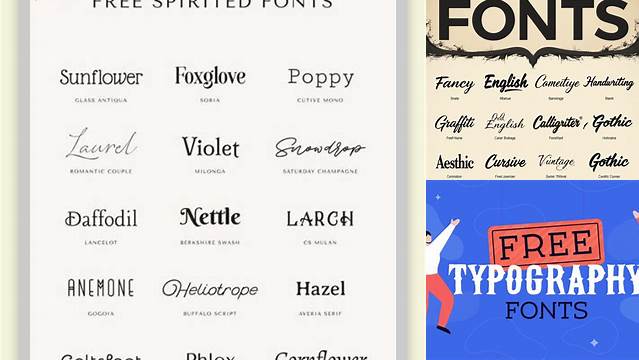
Free Fonts: Download & Use For Stunning Designs
Free Fonts: Download Stunning Typography for Your Projects
Hey there, font enthusiasts! Looking to spice up your designs without breaking the bank? You've come to the right place! This article is all about beautiful font free download, diving into the world of typography and helping you discover some amazing fonts that won't cost you a dime. We'll cover everything from classic serifs to modern sans-serifs, script fonts to display fonts, ensuring you find the perfect typeface to express your creativity. Whether you're a graphic designer, a blogger, a student, or just someone who loves playing with fonts, get ready to explore a treasure trove of free font resources. Let's get started and unlock the potential of stunning typography for all your projects! Beautiful font free download is a great way to start your project.
Why Free Fonts Are a Designer's Best Friend
So, why are beautiful font free downloads such a big deal? Well, let's face it, the cost of premium fonts can add up quickly. For budding designers or those working on personal projects, shelling out big bucks for fonts isn't always feasible. That's where free fonts come in, offering a fantastic opportunity to access a wide variety of typefaces without spending a single penny. This means you can experiment with different styles, find the perfect font for your brand or project, and enhance your designs without any financial constraints.
But it's not just about the cost. Free fonts can also spark your creativity and introduce you to new design possibilities. By exploring different styles, from elegant serifs to playful scripts, you can broaden your typographic horizons and discover unique ways to communicate your message. Plus, many free fonts are incredibly high-quality, often created by talented designers who generously share their work with the community. So, you're not just getting something for free; you're getting access to design excellence. Also, beautiful font free downloads are also useful for commercial use, just make sure you check the license. Some free fonts are licensed for personal use only, while others are available for both personal and commercial projects. Always read the fine print to ensure you're using the font legally. Beautiful font free download is a way to make your project unique and creative. Free fonts are a fantastic resource for designers of all levels. They're budget-friendly, creatively inspiring, and readily available. So, what are you waiting for? Dive in and start exploring the world of free fonts today!
Choosing the right font can make or break your design. Here are some tips to help you select the perfect typeface for your project:
- Consider Your Project's Purpose: What are you trying to achieve? A professional business document might call for a clean, classic serif or sans-serif font, while a playful children's book might benefit from a more whimsical script font. Every font communicates something different, so choose one that aligns with your message and target audience. Every project is different, so choosing the right font is critical.
- Think About Readability: Prioritize readability, especially for body text. Avoid overly ornate or complex fonts that can be difficult to read at smaller sizes. Opt for clear, legible fonts that make your content easy to consume. The most beautiful font free download can be useless if the font is not readable.
- Pay Attention to Font Pairing: Don't be afraid to mix and match fonts, but choose typefaces that complement each other. Consider pairing a classic serif for headings with a clean sans-serif for body text, or vice versa. Make sure the fonts work well together and create a cohesive look. Combining fonts is a great way to add visual interest to your project.
Installing and Using Your New Fonts
So, you've found your dream beautiful font free download, now what? Installing and using fonts is a breeze. Here's how: